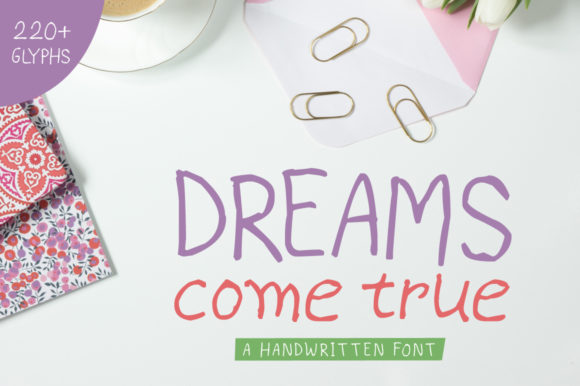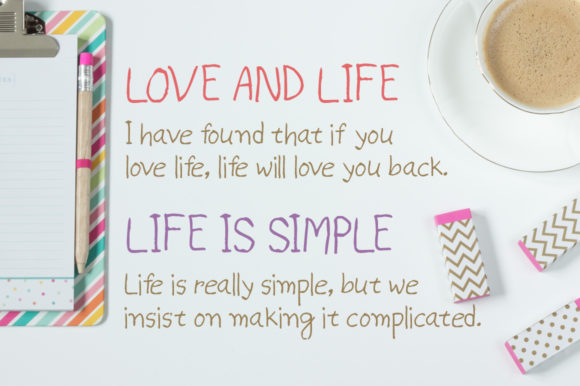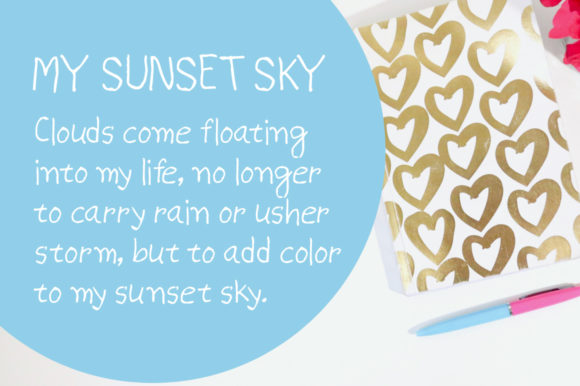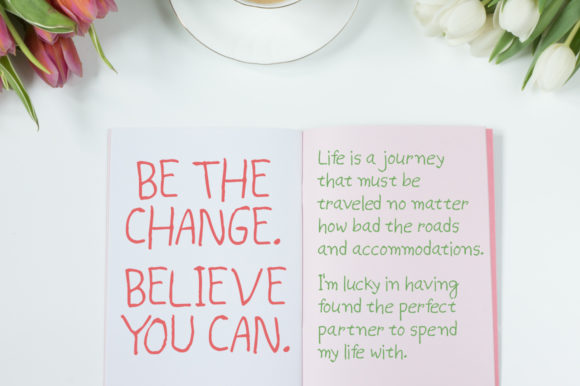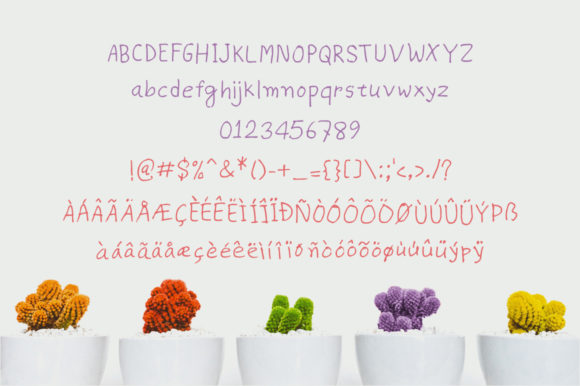
Dreams Come True Font
About Dreams Come True Font
The Dreams Come True is a new handwritten font. It has a fun feel which makes it perfect for every design which needs a striking, yet playful font with a good readability.